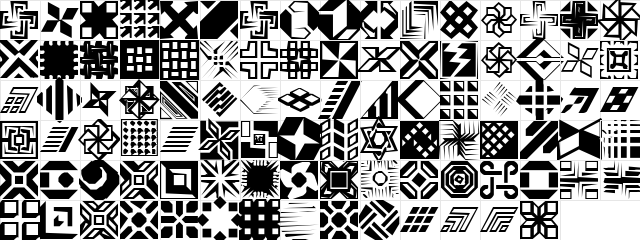
Big Storing Dingbats Regular
Design Context for Big Storing Dingbats Typeface
Big Storing Dingbats is a composed and adaptable typeface that performs quietly and consistently across a wide range of design contexts.